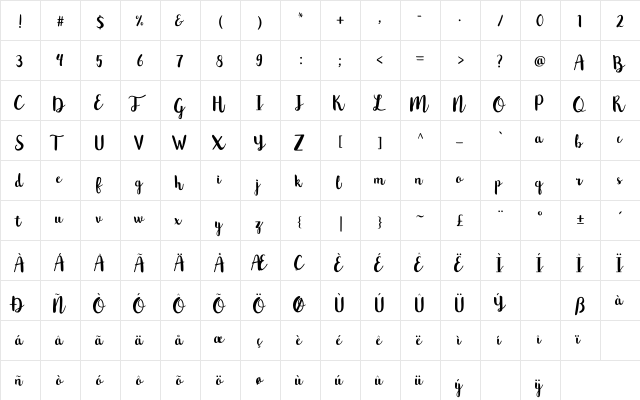
Northern Lights Script
| Style | Script |
| Foundry | Worn Out Media |
| Designer | Mats-Peter Forss / Worn Out Media |
Design Context for Northern Lights Typeface
Northern Lights brings a calligraphic fluidity to the page — its connecting strokes and expressive curves give it an unmistakably human quality. The delicate stroke weight brings airiness and refinement to layouts.